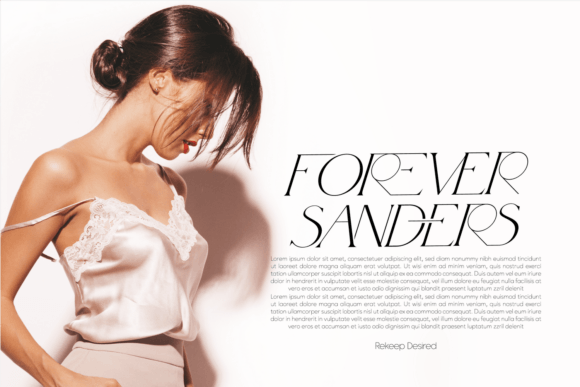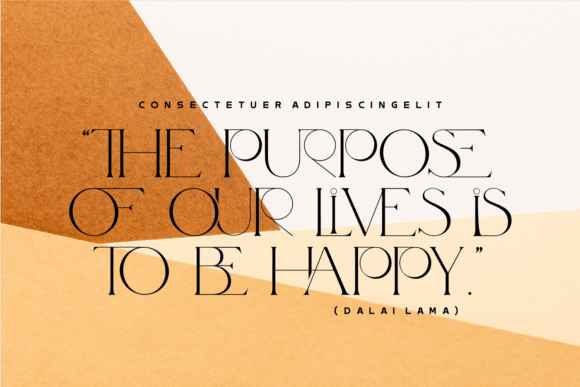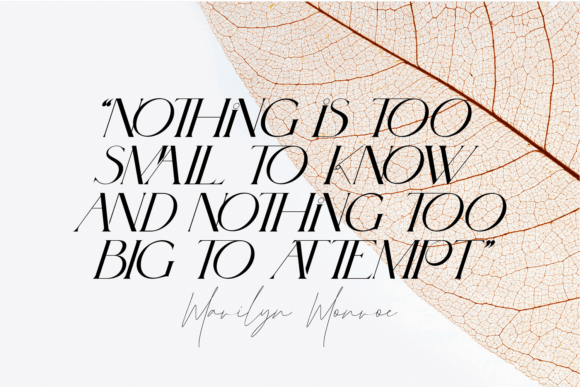
Introduction to Rekeep Desired Font
Rekeep Desired Font is a modern elegant serif font family, that embodies timeless elegance and luxurious appeal.
With its aesthetic charm and chic sophistication, this font adds a touch of nostalgia to your designs This versatile typeface is perfect for creating captivating and elegant visuals, making it ideal for high-end branding and refined projects.